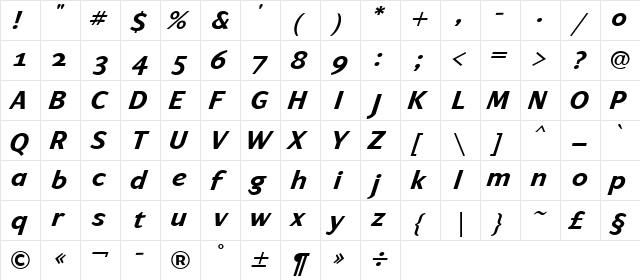
ArtemiusSans SN TT Bold Italic
Design Context for ArtemiusSans SN TT Typeface
ArtemiusSans SN TT offers clean, dependable letterforms without strong stylistic allegiance, making it a practical choice for designers who need flexibility. The slanted form adds forward momentum and visual energy. The heavy weight commands attention and anchors typographic hierarchies.
Pro Tip: Use ArtemiusSans SN TT for emphasis, pull quotes, and subheadings where its slanted energy can add rhythm to the layout.